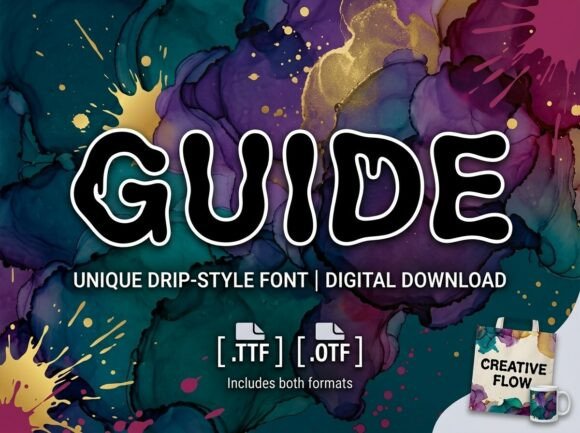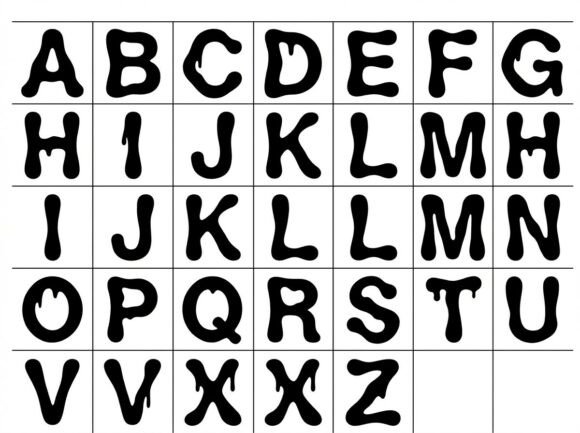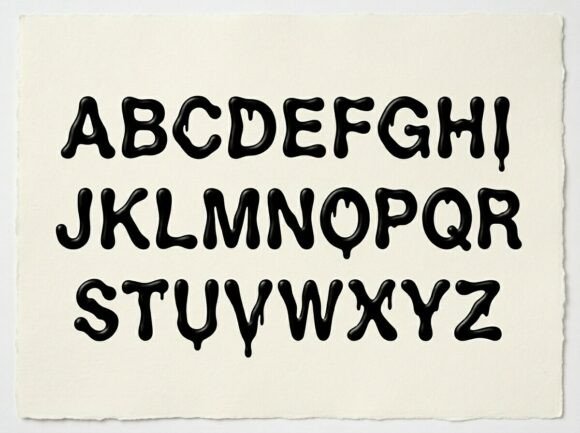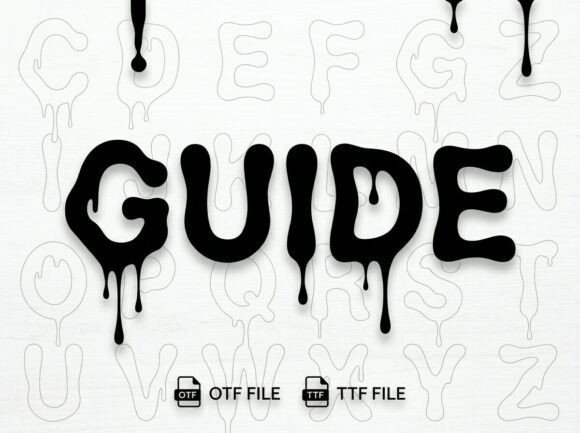
Introducing Guide Font: A Stunning Decorative Display Font
Are you tired of using the same old fonts for your designs? Do you want to add a touch of uniqueness and creativity to your projects? Look no further than Guide Font, a decorative display font that is sure to turn heads. In this article, we’ll take a closer look at Guide Font, its features, and how it can elevate your designs.
Guide Font is a stunning decorative display font designed to be the center of attention. With its unique artistic elements and strong visual personality, this font is perfect for creators who want to break away from the ordinary. Whether you’re working on a bold headline, artistic logo, or creative packaging, Guide Font is versatile enough to make a lasting impression while maintaining a professional and polished finish.
This unique feature is what sets Guide Font apart from other fonts. The all-caps design allows for maximum visual impact, making it perfect for titles, headings, and other attention-grabbing elements.
Guide Font is a dream come true for designers and crafters who want to add a touch of creativity to their projects. With its unique and artistic elements, this font is perfect for:
- Bold Headlines – Make a statement with Guide Font’s attention-grabbing headlines.
- Artistic Logos – Create a lasting impression with Guide Font’s unique and artistic logo designs.
- Creative Packaging – Stand out from the crowd with Guide Font’s decorative and eye-catching packaging designs.
Whether you’re working on a branding project, packaging design, or marketing materials, Guide Font is the perfect choice.
Tips for Using Guide Font
To get the most out of Guide Font, here are some tips to keep in mind:
- Use it sparingly – Guide Font is a decorative font, so use it sparingly to make a maximum impact.
- Experiment with colors and textures – Guide Font looks great with bold colors and textures, so don’t be afraid to experiment.
- Pair it with a simple font – Pair Guide Font with a simple font to create a striking contrast.
By following these tips, you can create stunning designs that showcase Guide Font’s unique features.